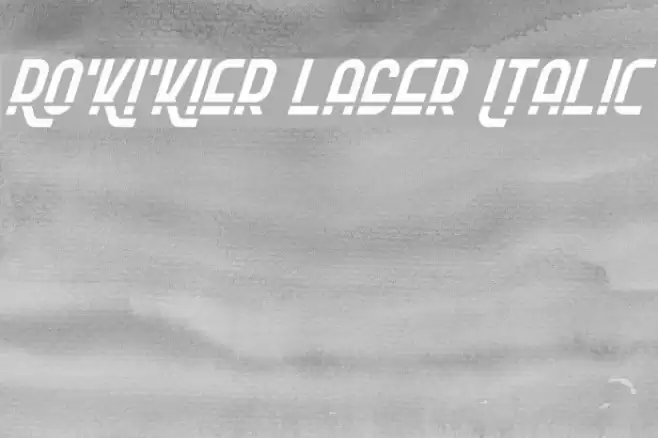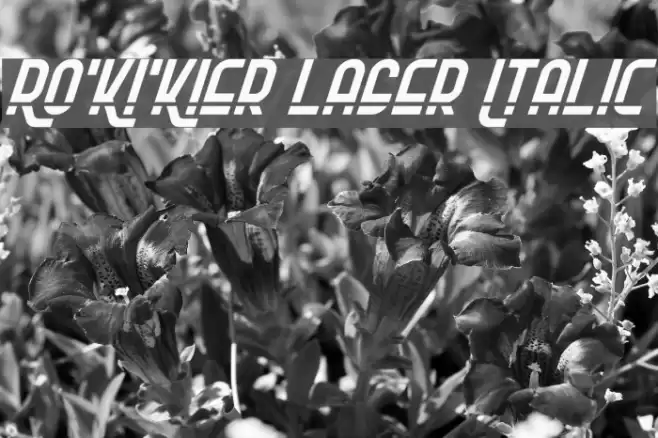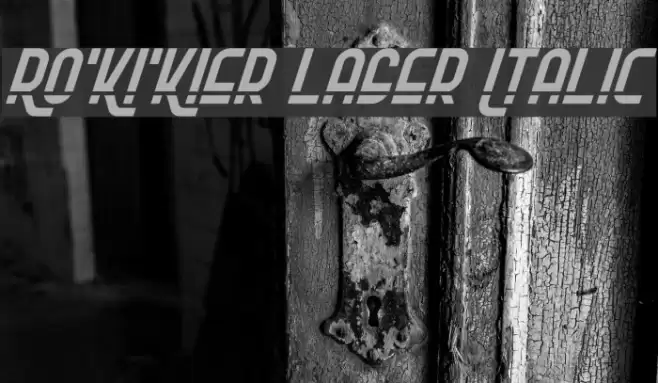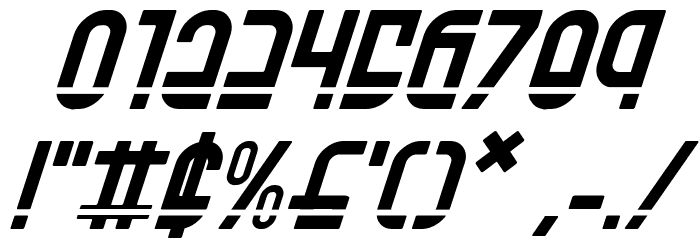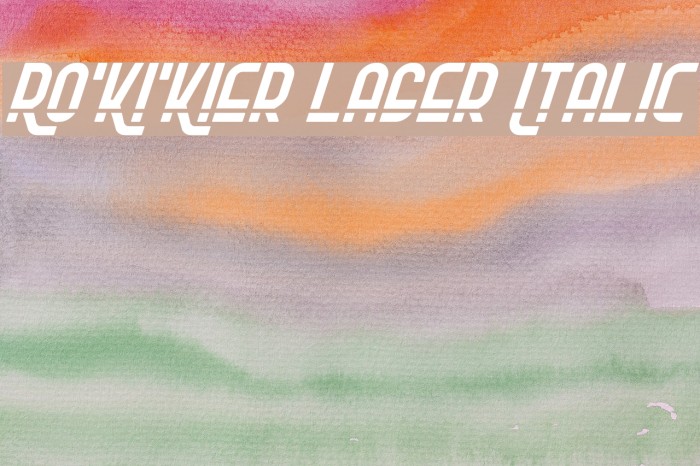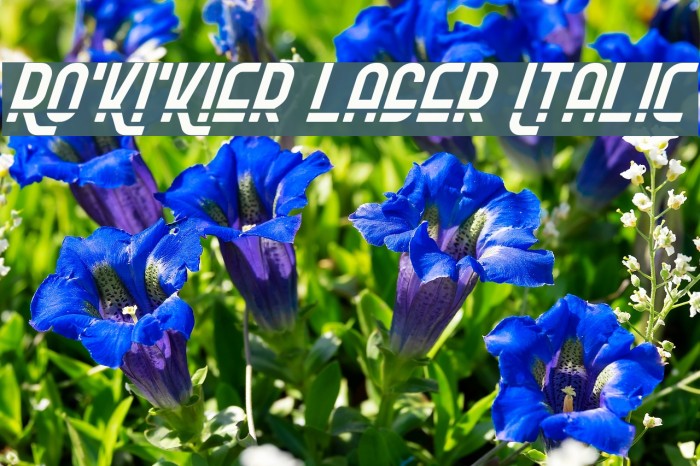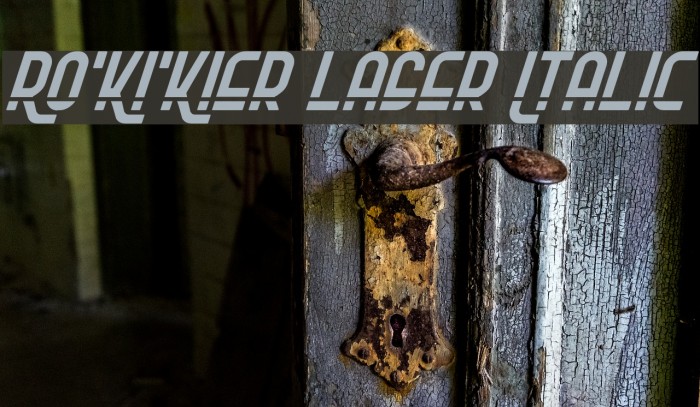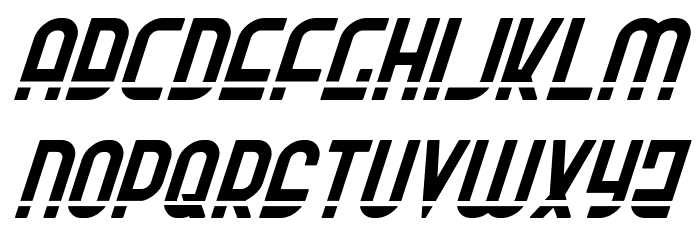
Ro'Ki'Kier Laser Italic Font
Ro'Ki'Kier Laser Italic Description
This font features a futuristic and dynamic design, characterized by its sharp, angular lines and italicized slant. The letters are bold and wide, with a distinct geometric style that gives it a modern and tech-inspired appearance. The uppercase and lowercase letters maintain a consistent style, with the uppercase being more prominent and the lowercase slightly more compact. Numbers and special characters follow the same design principles, ensuring uniformity across all glyphs. The font's unique style makes it stand out, with a sense of motion and speed conveyed through its slanted orientation and sharp edges.
A bold, italicized font with a futuristic, geometric design from Uncategorized fonts.
- Proposed Projects: Ideal for technology branding, sci-fi movie posters, video game titles, and futuristic-themed designs.
- Width: Expanded
- Overall Style: Futuristic
- Use Case: Logos, Headlines